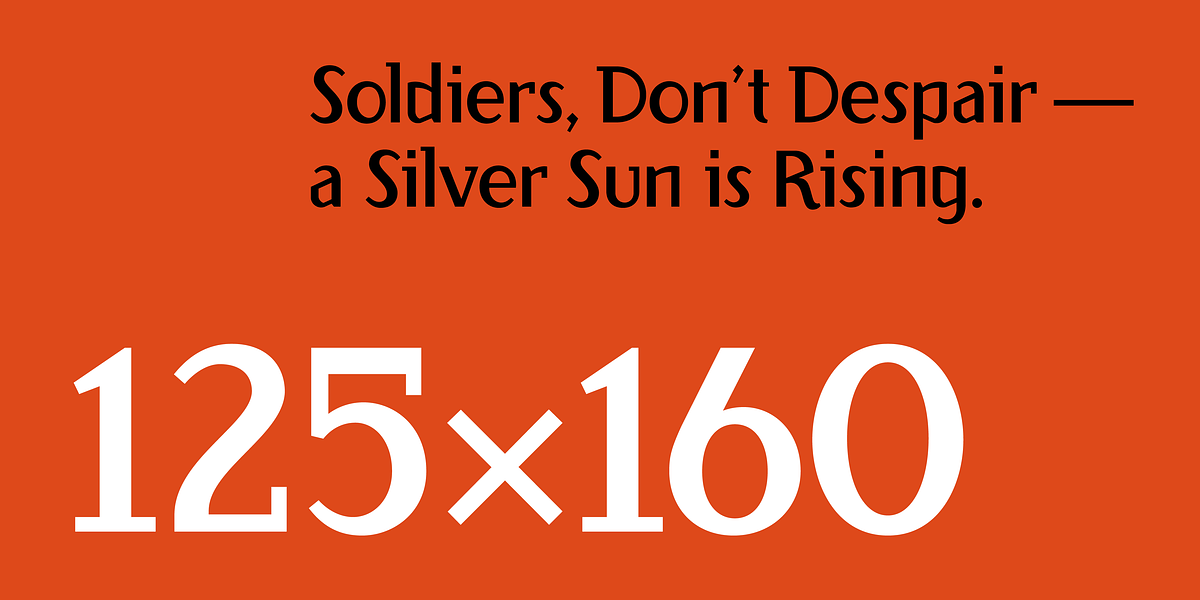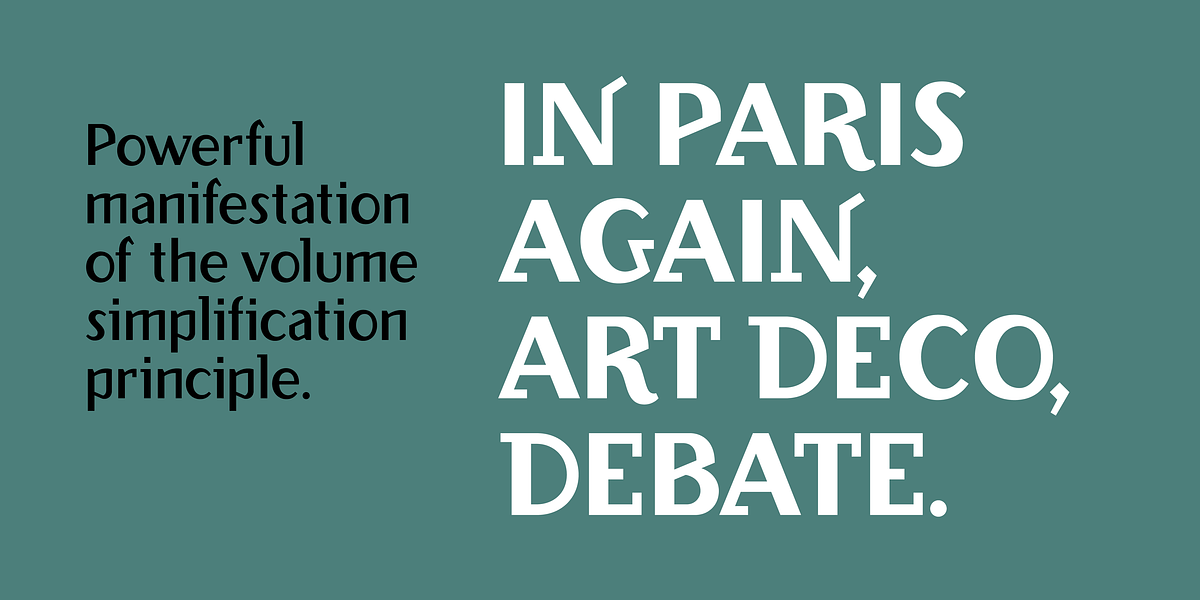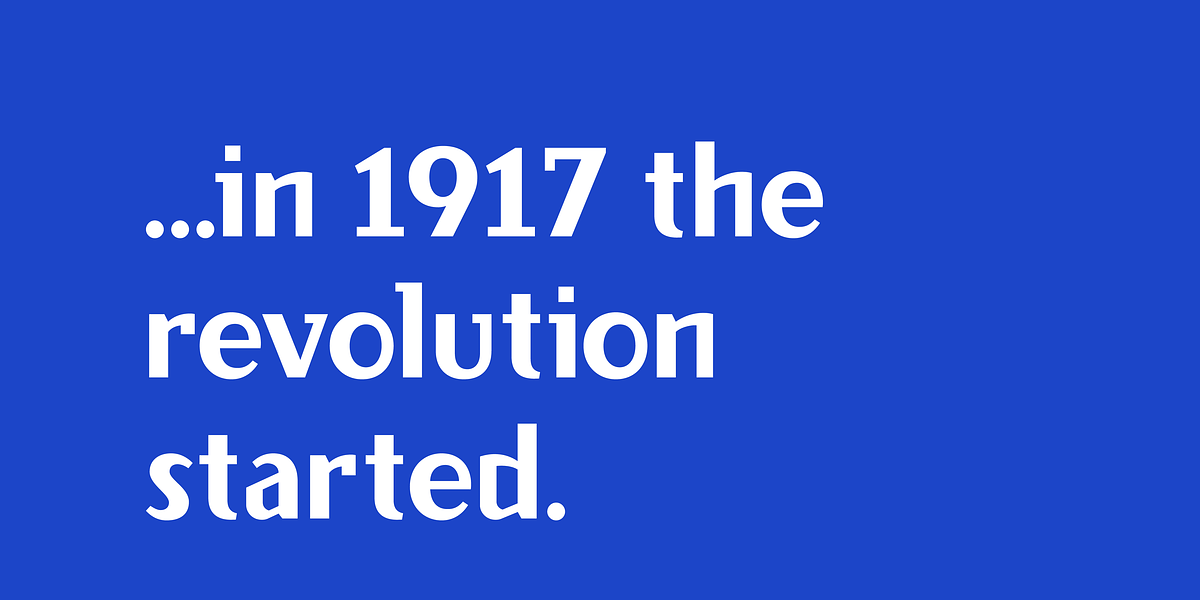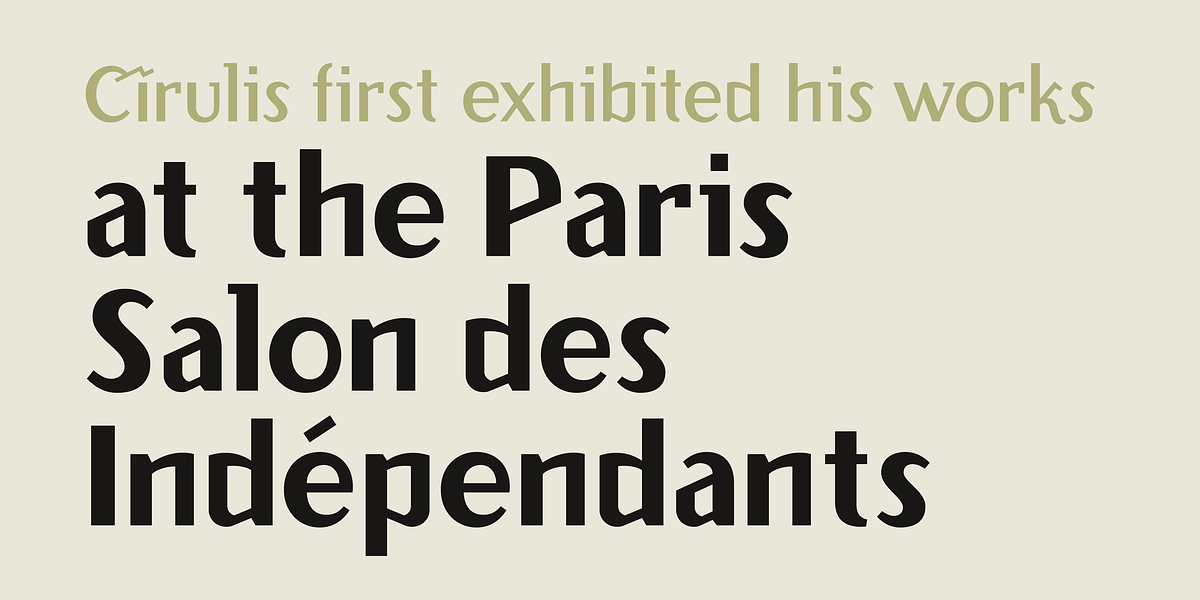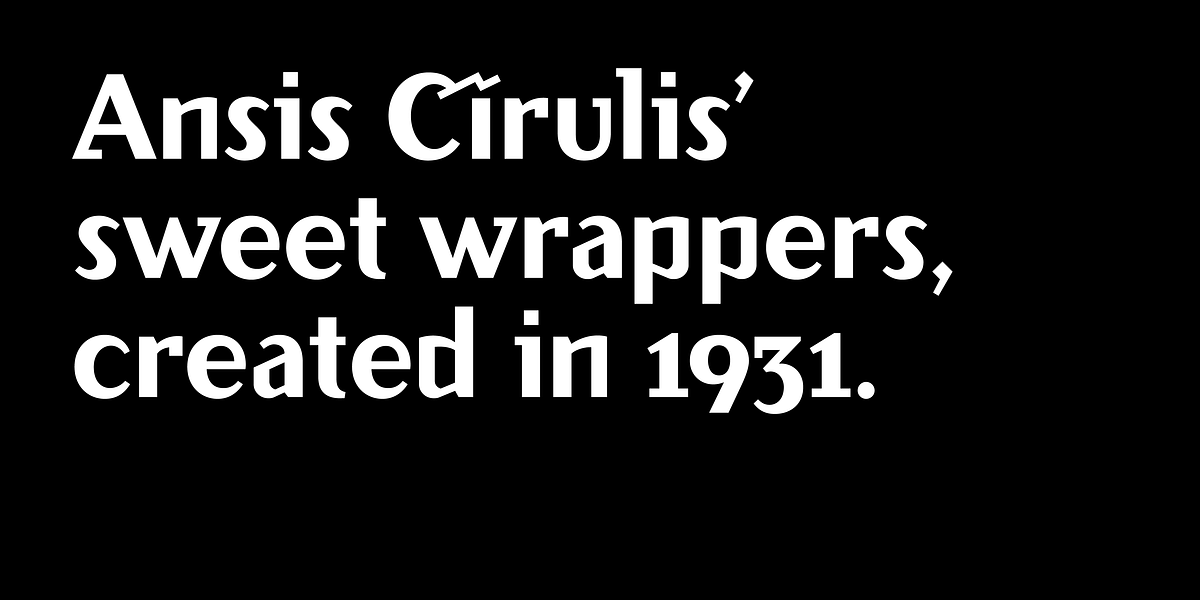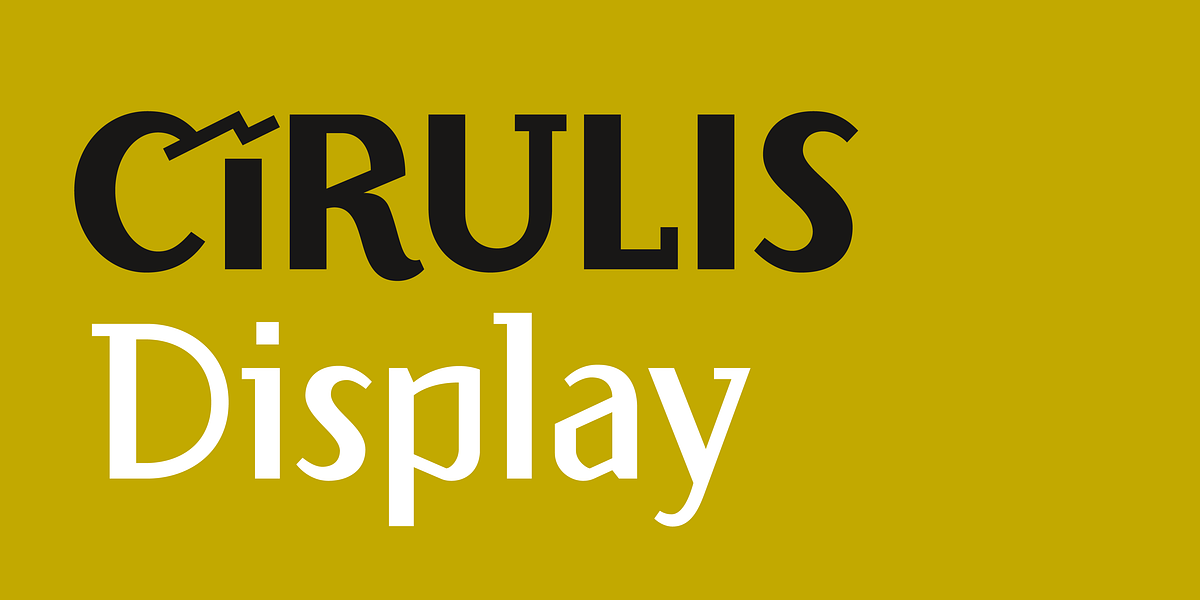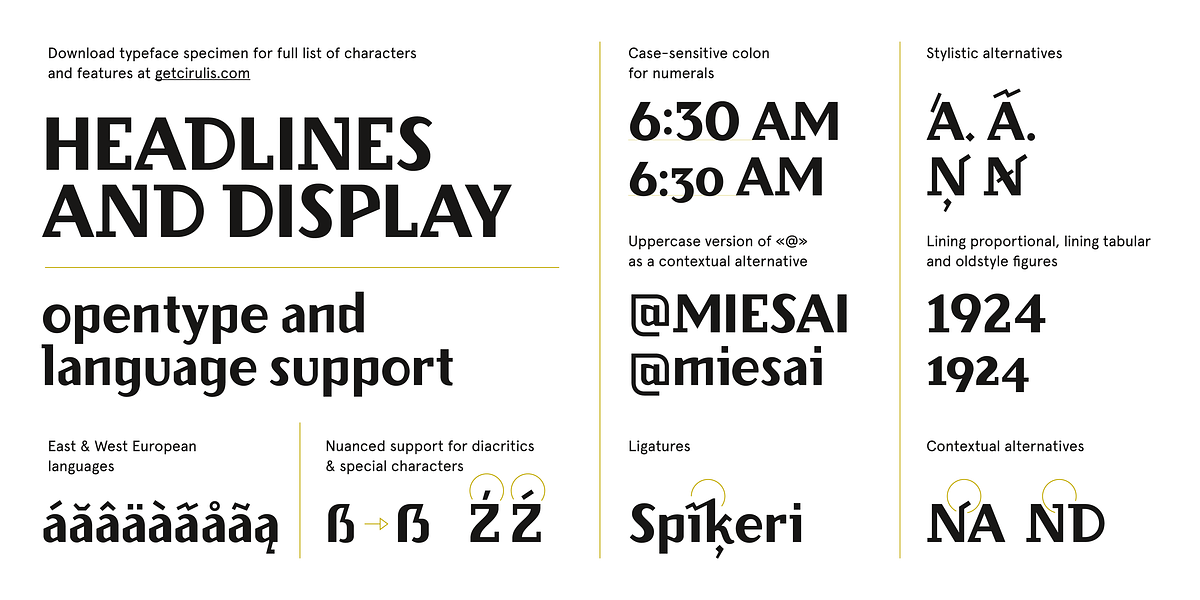
Cirulis Display
Cirulis is a geometric sans serif font family designed by Asketic. It draws inspiration from the work of Ansis Cīrulis, an early 20th-century Eastern European designer known for his distinctive letterforms. Cirulis features asymmetric widths and sliced cuts, resulting in a unique and modern aesthetic. The font comes in two weights - regular and bold - and supports a wide range of languages.